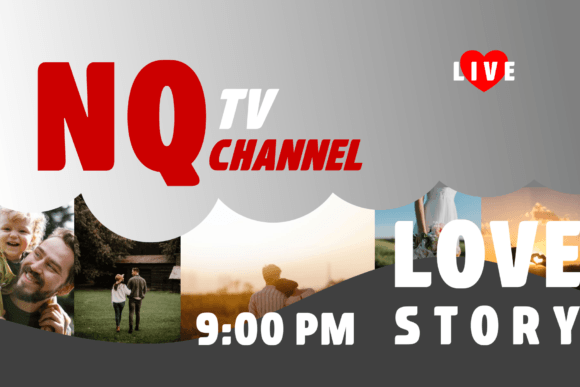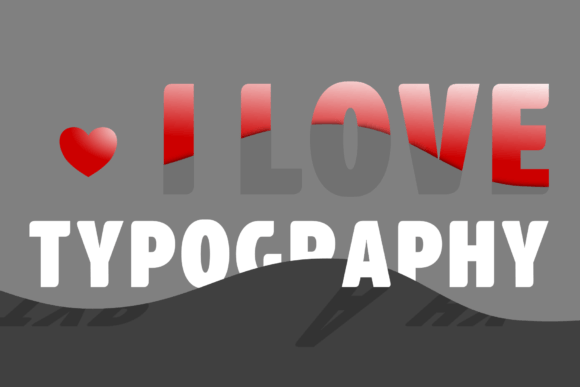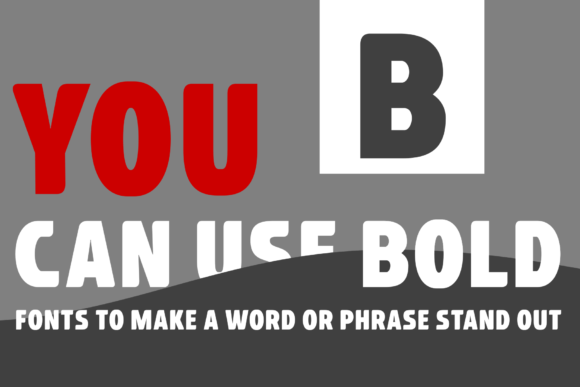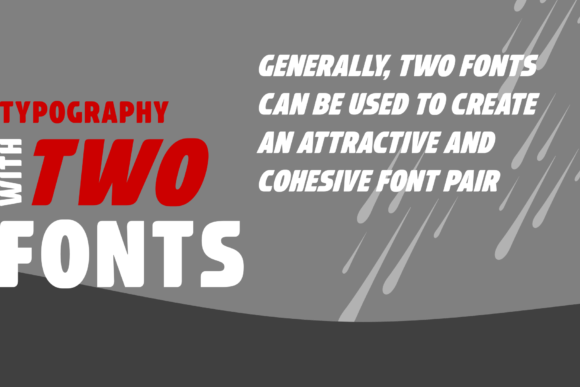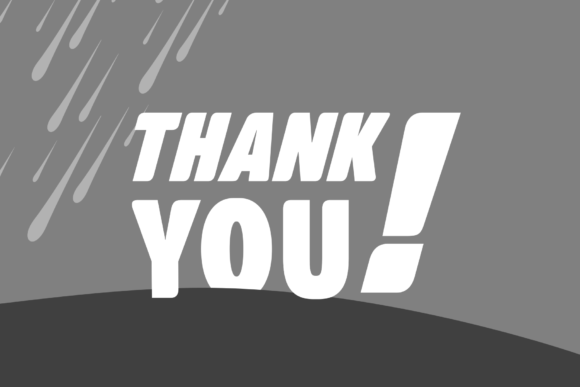
Introducing Equines Font: Elevate Your Designs with a Versatile Display Font
In the world of typography, a well-crafted font can make all the difference in elevating your design to the next level. For designers and crafters seeking a bold and elegant display font, look no further than Equines Font. Specifically designed for display purposes, Equines Font is a versatile font family that boasts a modern, thick, and strong appearance, perfect for a wide range of applications.
The Perfect Blend of Strength and Elegance
Equines Display, the flagship font of the Equines Font family, is engineered to make a statement. Its robust and sturdy design makes it an ideal choice for branding, logos, banners, and any lettering that demands bold and clear letters. However, what sets Equines Display apart from other display fonts is its unique rounding feature. By incorporating rounded corners with a cross-system, Equines Display injects a touch of artistic flair into its letters, transforming them from mere shapes to dynamic, strong, and elegant word displays.
Key Features of Equines Font
- Modern and Bold Design: Equines Font features a contemporary design with a bold and thick appearance, making it perfect for grabbing attention.
- Versatile and Adaptable: Whether you’re working on branding, logos, banners, or any other display lettering, Equines Font is designed to adapt and excel.
- Unique Rounding Feature: The rounded corners with a cross-system add an artistic touch, making the letters not just bold but also elegantly dynamic.
- Cross-Platform Compatibility: Designed with a cross-system approach, Equines Font ensures consistency and quality across various platforms and devices.
Applications of Equines Font
The versatility of Equines Font makes it suitable for a myriad of applications. Here are a few ideas to get you started:
- Branding and Logos: Create a lasting impression with a bold and elegant logo that stands out.
- Advertising Banners: Grab attention with headers and titles that are not only bold but also dynamically elegant.
- Web and Mobile UI: Enhance user interfaces with clear and readable typography that also adds an aesthetic appeal.
- Print Media: Elevate your brochures, posters, and flyers with a font that commands attention and exudes professionalism.
Tips for Using Equines Font Effectively
To maximize the impact of Equines Font in your designs, consider the following tips:
- Pair with Complementary Fonts: For body text or secondary headers, pair Equines Font with simpler fonts to maintain visual harmony.
- Experiment with Colors: While Equines Font shines in bold colors, experimenting with gradients or subtle color shifts can add depth.
- Play with Sizes: Utilize the font’s versatility by varying sizes to create visual hierarchy and emphasis.
Equines Font, particularly its standout variant Equines Display, offers designers and crafters a powerful tool to elevate their typography. With its unique blend of strength, elegance, and versatility, it’s poised to become a go-to font for those looking to make a bold statement. Whether you’re crafting a brand identity, designing an ad banner, or simply experimenting with typography, Equines Font is sure to inspire and deliver.
Discover the potential of Equines Font in your next design project and experience firsthand how this versatile display font can transform your work into something dynamic, strong, and elegantly bold.